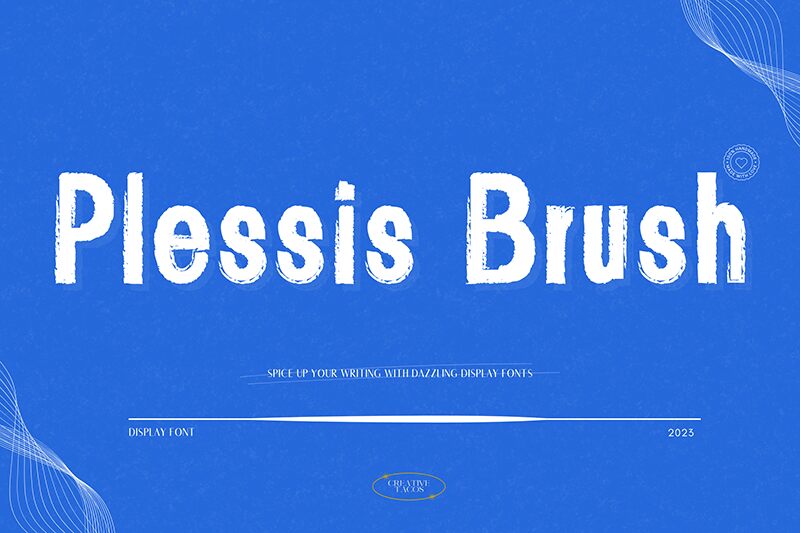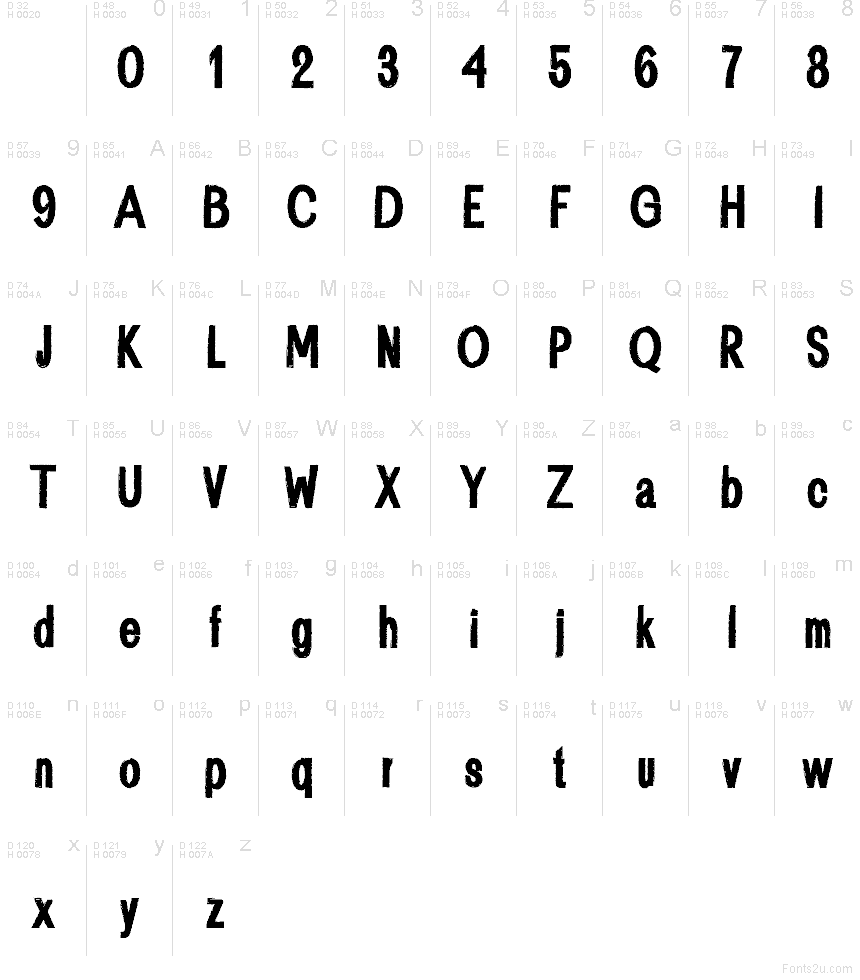
Plessis font by Creativetacos is a free eroded display typeface that looks like it’s been dragged across concrete and stamped down again. Thick, blocky letters are shredded with rough, ink-heavy edges and broken patches that feel raw and tactile, like photocopied flyers from a basement show. It has a bold, noisy presence that instantly injects grit and attitude into any layout.
Using Plessis, headlines don’t just sit on the page-they shout. This free font works beautifully for gig posters, album covers, horror titles, streetwear graphics, protest artwork, and grunge-style social posts. Set it big so the distressed texture really breathes, then pair it with a clean, neutral sans serif for body copy to keep your message loud but legible.